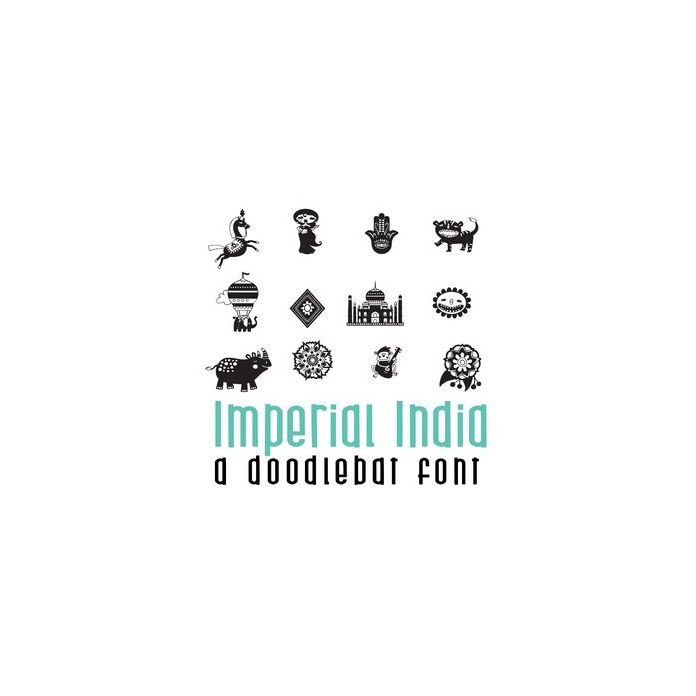
This fun doodle style doodlebat font features 26 bohemian-style Indian designs. Perfect for cards, crafts, gifts, decor, scrapbook pages, planner stickers and more! Dingbats are A-Z and 0-9.